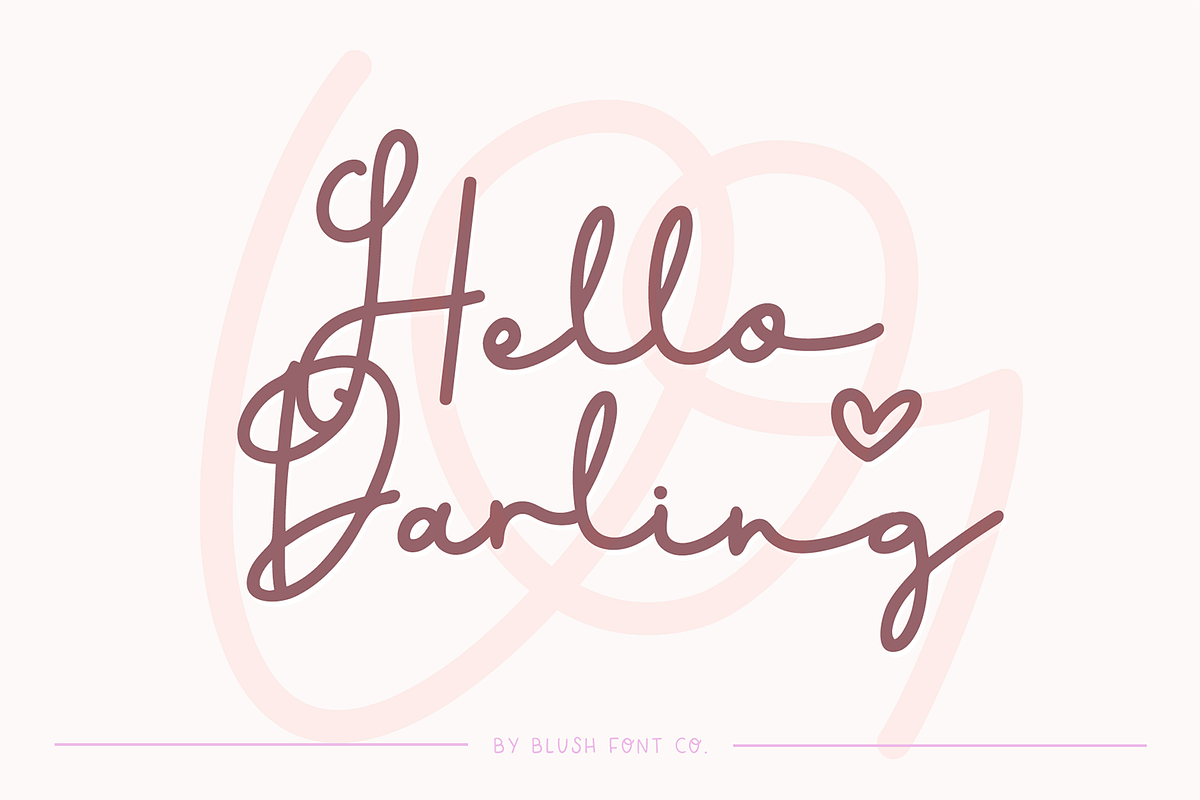
HELLO DARLING Signature Valentine Font Free Download is a romantic and elegant handwritten typeface, perfect for adding a personal touch to your designs. Please note: you must purchase this font for commercial use, but you can test it through a free download. With its flowing script and delicate curves, Hello Darling is ideal for wedding invitations, Valentine’s Day cards, branding, and social media posts that call for a soft, heartfelt vibe.
This font captures the essence of love and elegance, making it a go-to choice for designers who want to create something beautiful and emotional. Whether you're crafting a logo or a love note, HELLO DARLING Signature Valentine Font Free Download will elevate your project with its graceful charm. It works flawlessly with design software like Adobe Illustrator and Canva, making your creative process smooth and enjoyable. Download now and bring a touch of romance to your next design!